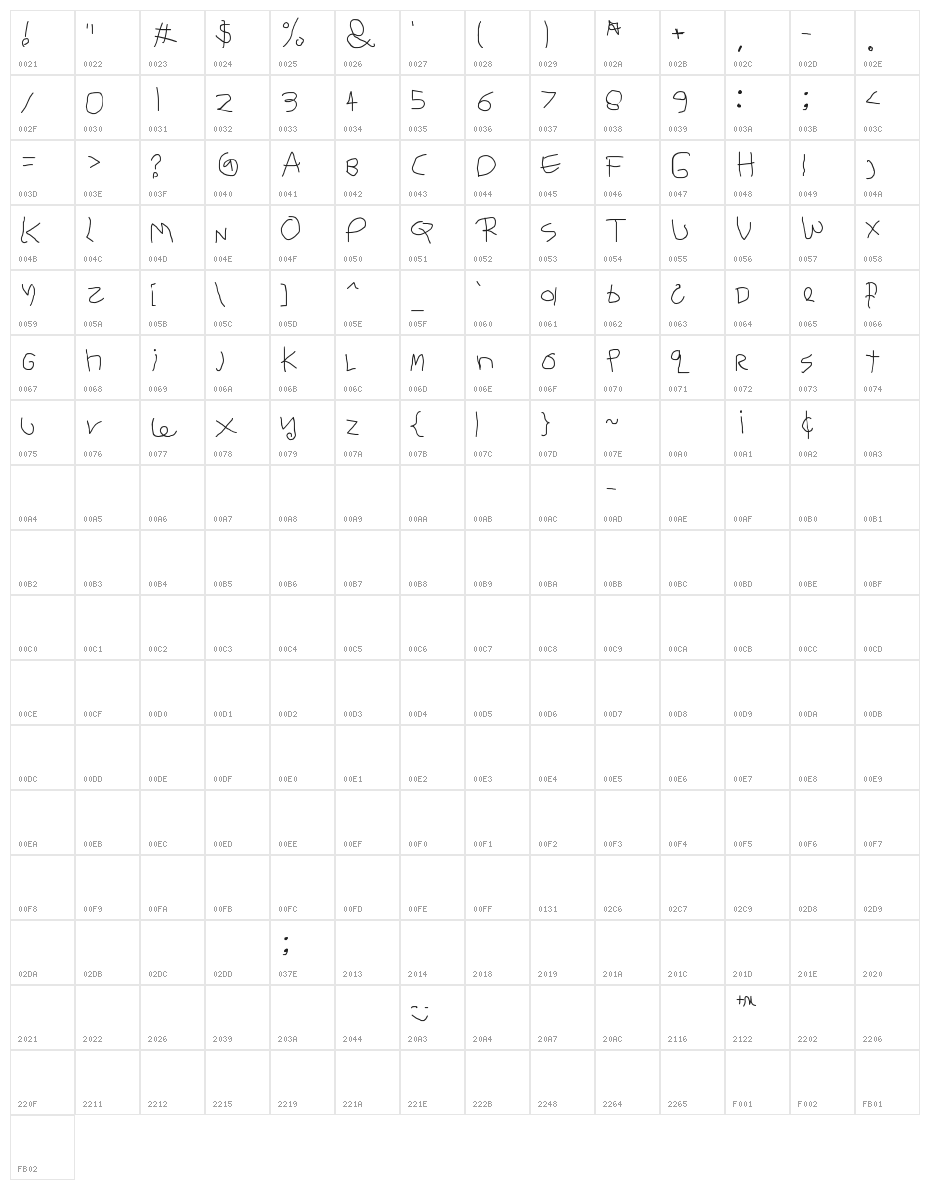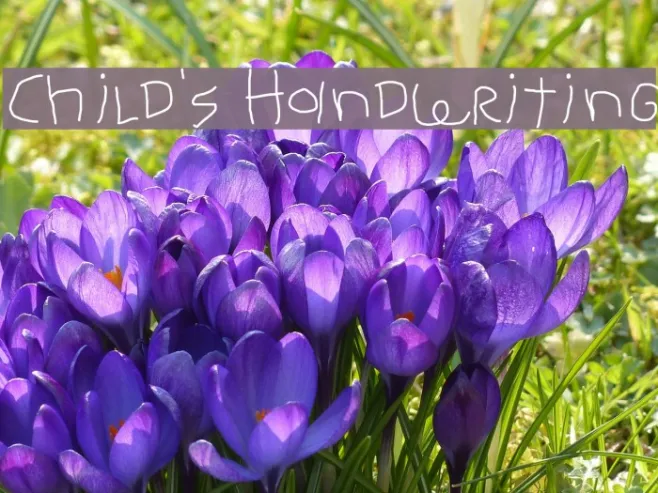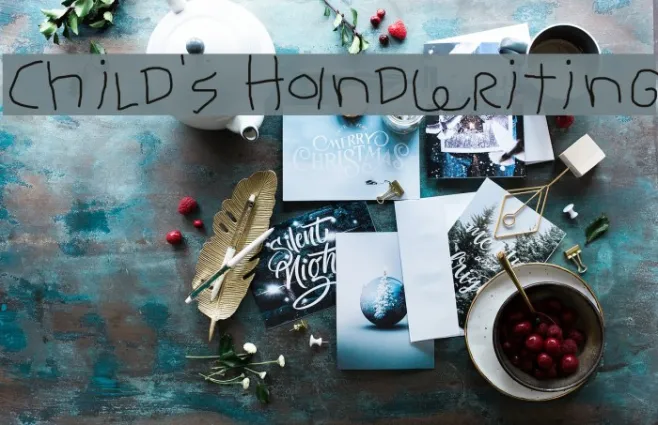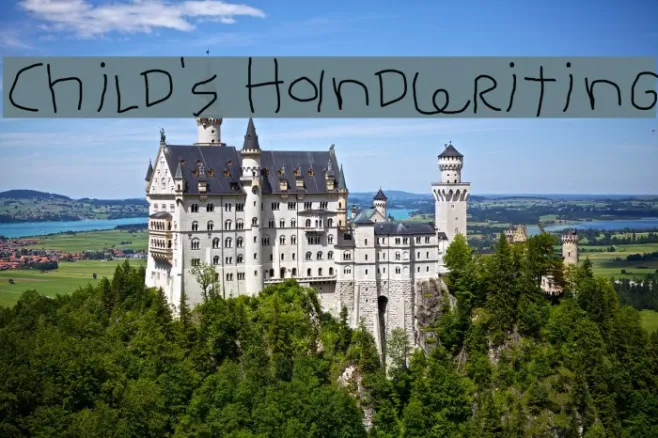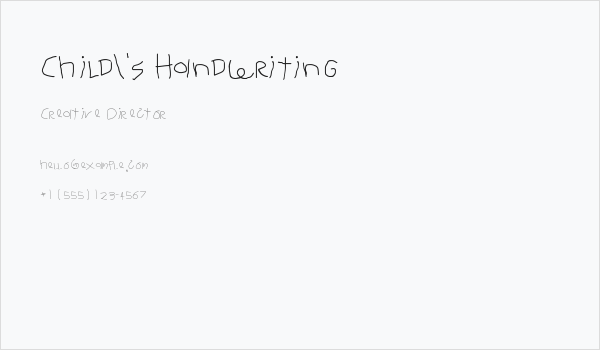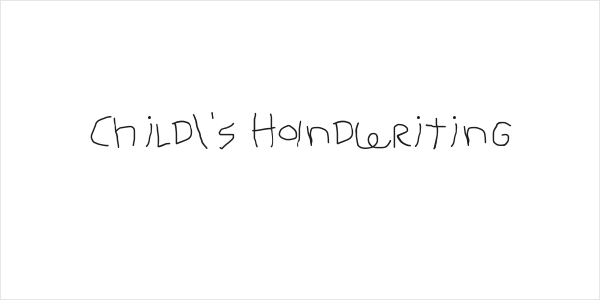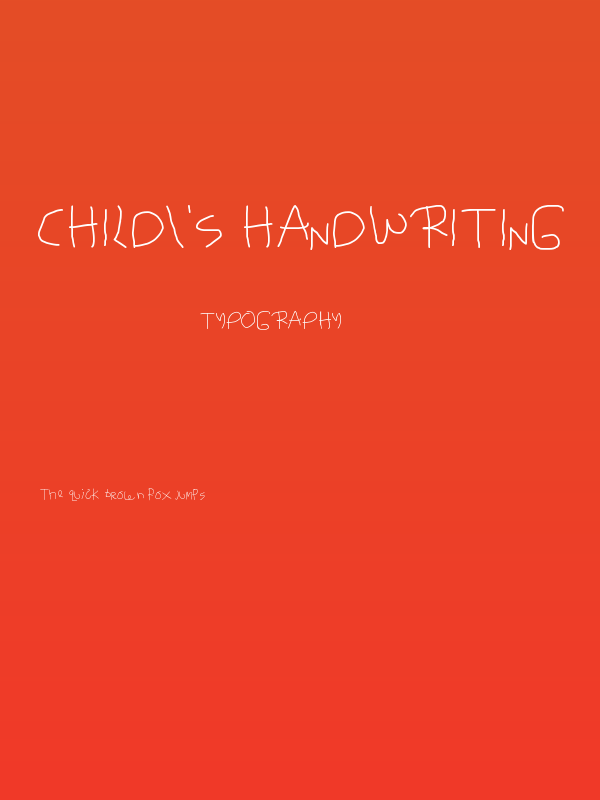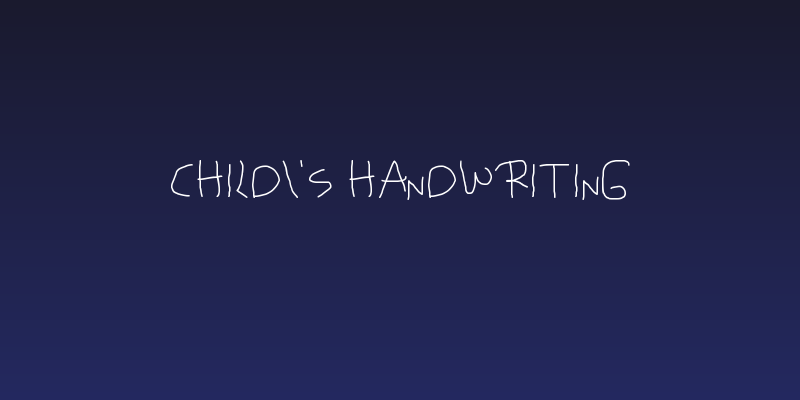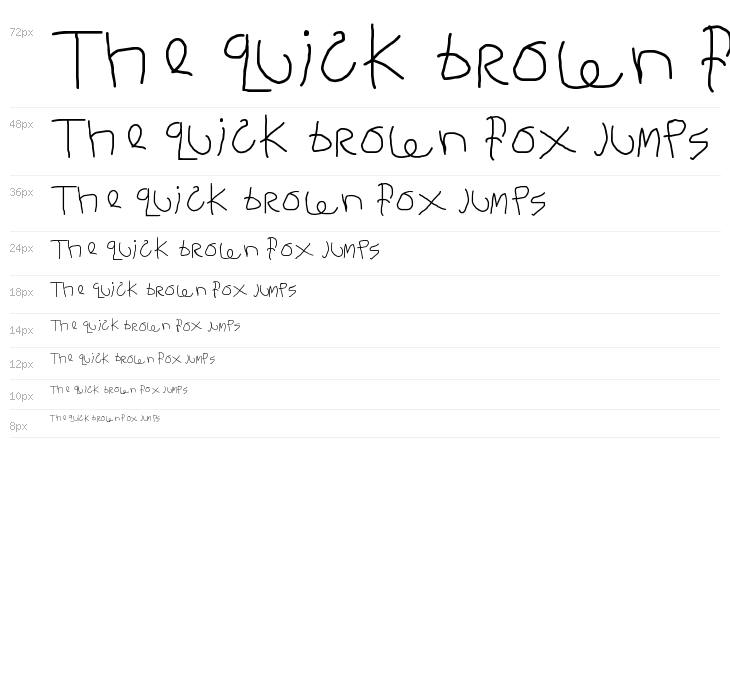
Child's Handwriting Font
Child's Handwriting Description
This playful and whimsical font mimics the unrefined and spontaneous style of a child's handwriting. The characters are unevenly sized and spaced, with a charmingly irregular baseline that adds to its authenticity. The strokes are thin and slightly shaky, giving the impression of a young hand learning to write. Uppercase and lowercase letters are distinct yet maintain a cohesive style, while numbers and special characters are crafted with the same youthful exuberance. This font captures the innocence and creativity of childhood, making it ideal for projects that require a touch of playfulness and informality.
Overall StylePlayful
Proposed ProjectsIdeal for children's books, educational materials, playful branding, and creative projects that require a whimsical touch.